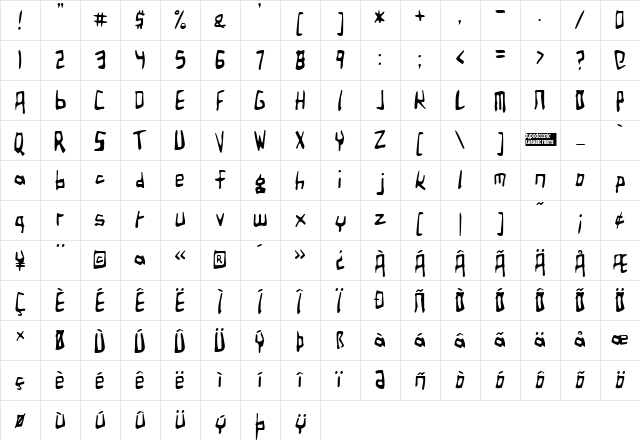
Birdland Aeroplane Regular
Birdland Aeroplane Family
Design Context for Birdland Aeroplane
Birdland Aeroplane is a composed and adaptable typeface that performs quietly and consistently across a wide range of design contexts.
Pro Tip: Use Birdland Aeroplane in both headline and body roles to test its range before committing to a single application.